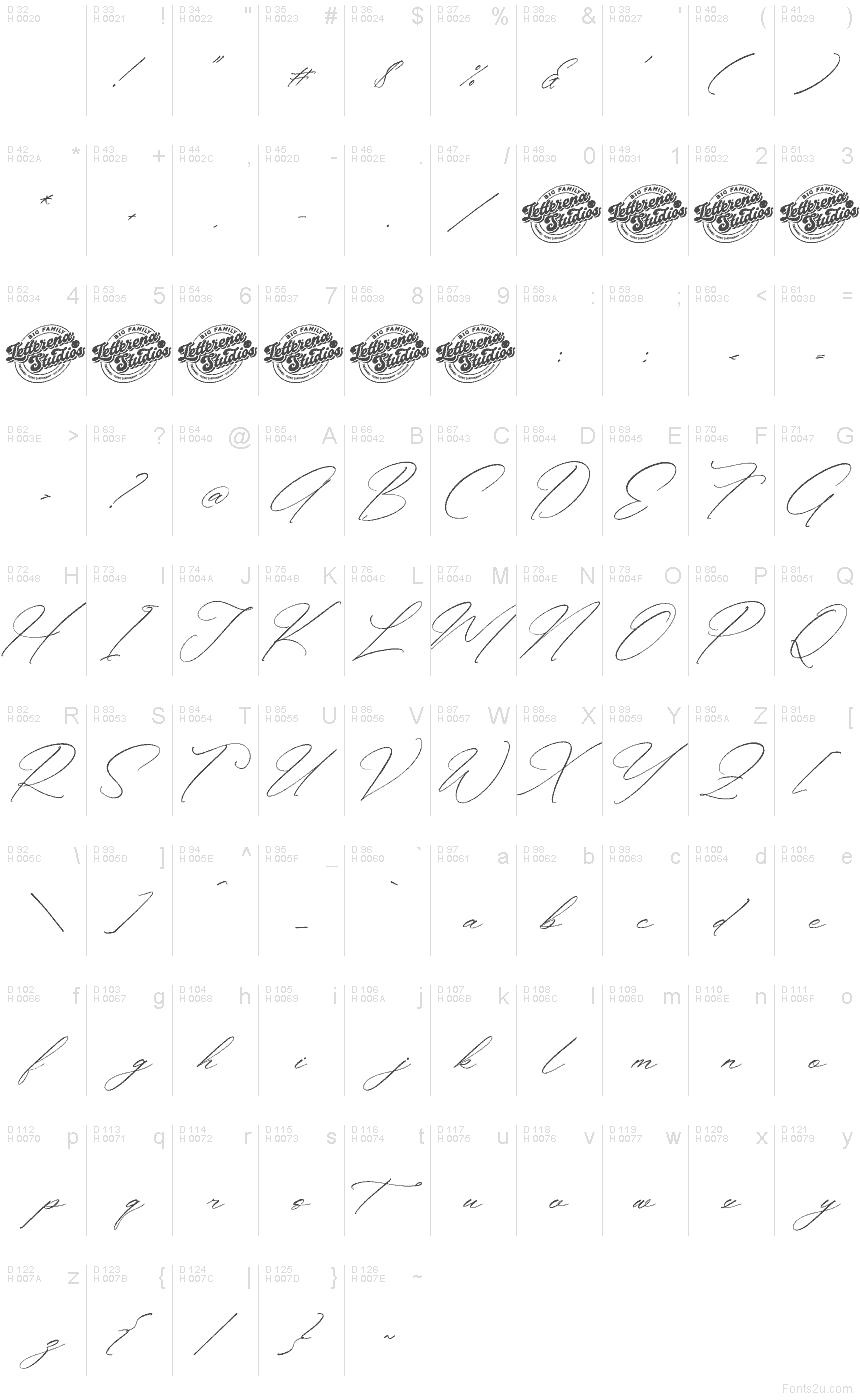
Anthellia DEMO VERSION Italic
Anthellia Italic font by Storytype Studio is a light handwritten font with a condensed and sophisticated appearance. Designed as an italic, the characters are not only slanted but also drawn in a script style, merging both elements of calligraphy and typography. Elegant lines connect between certain combinations where others remain separate.